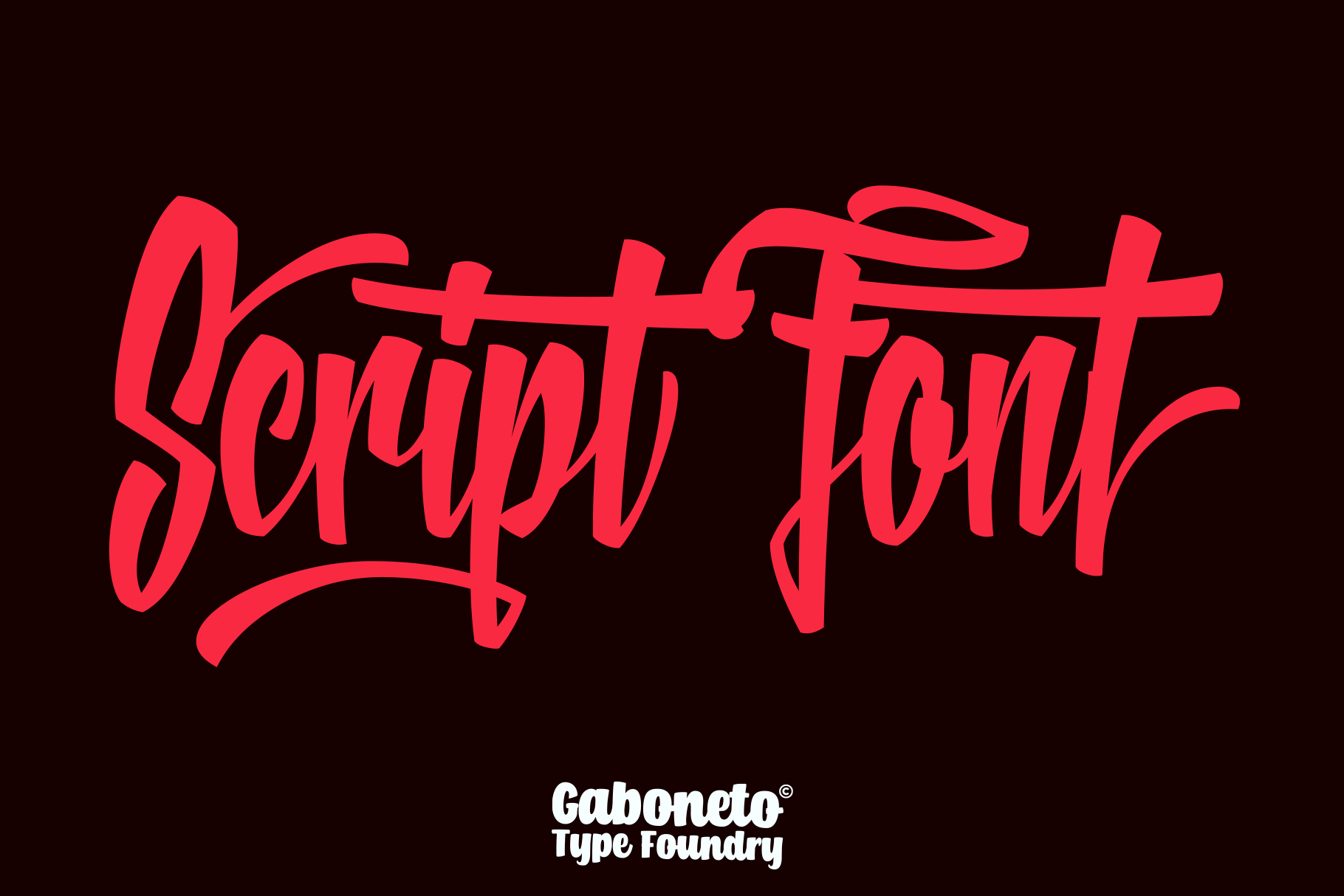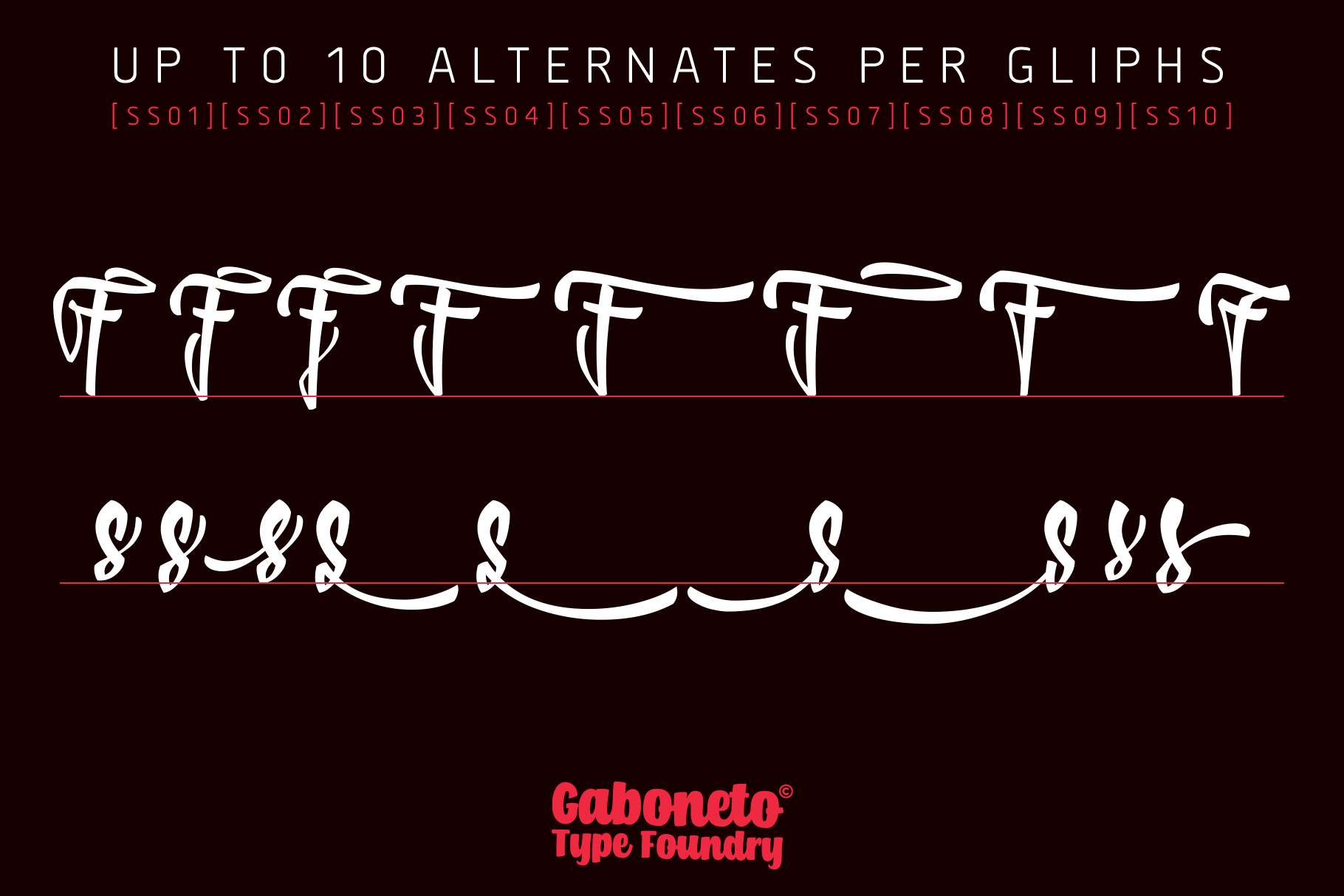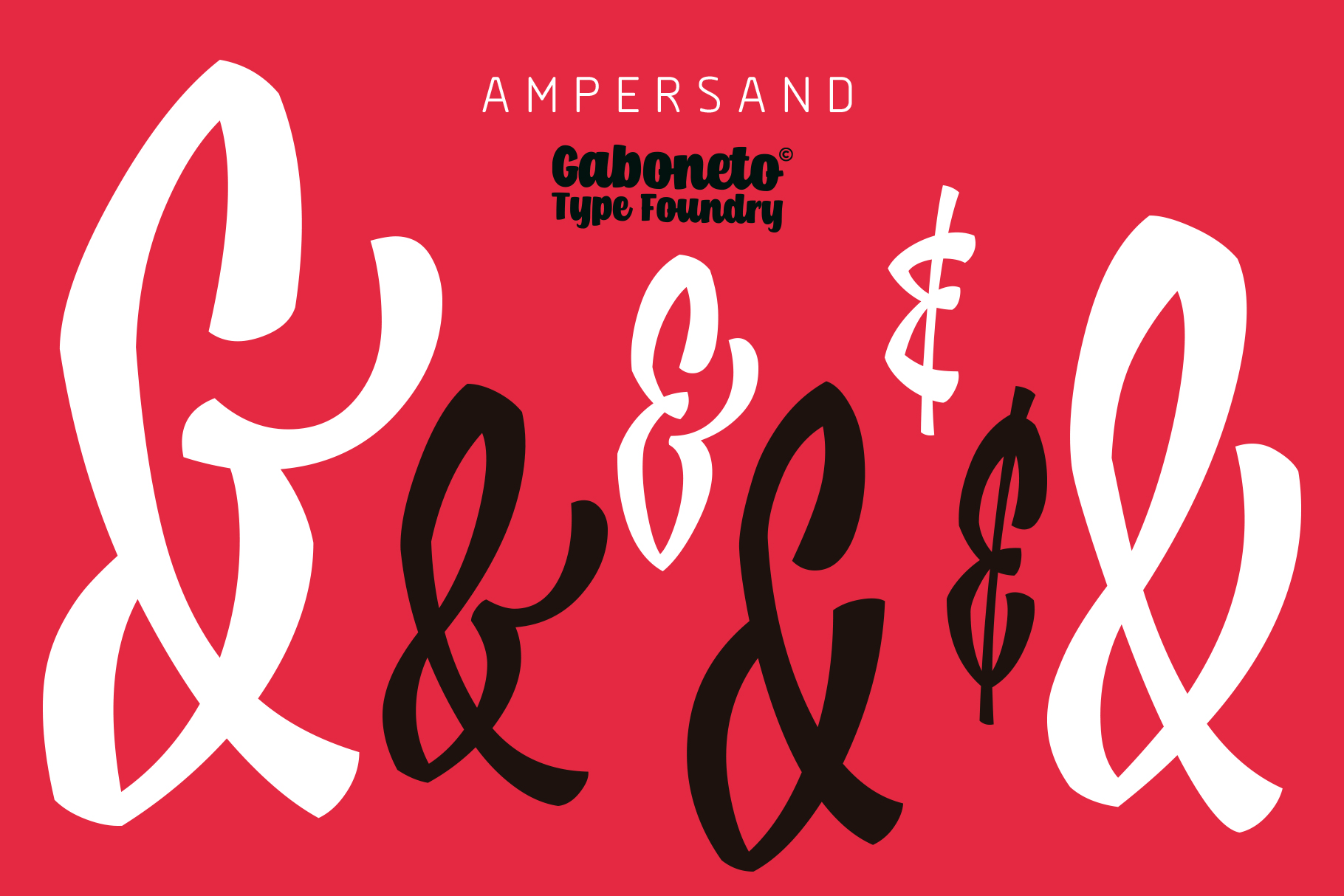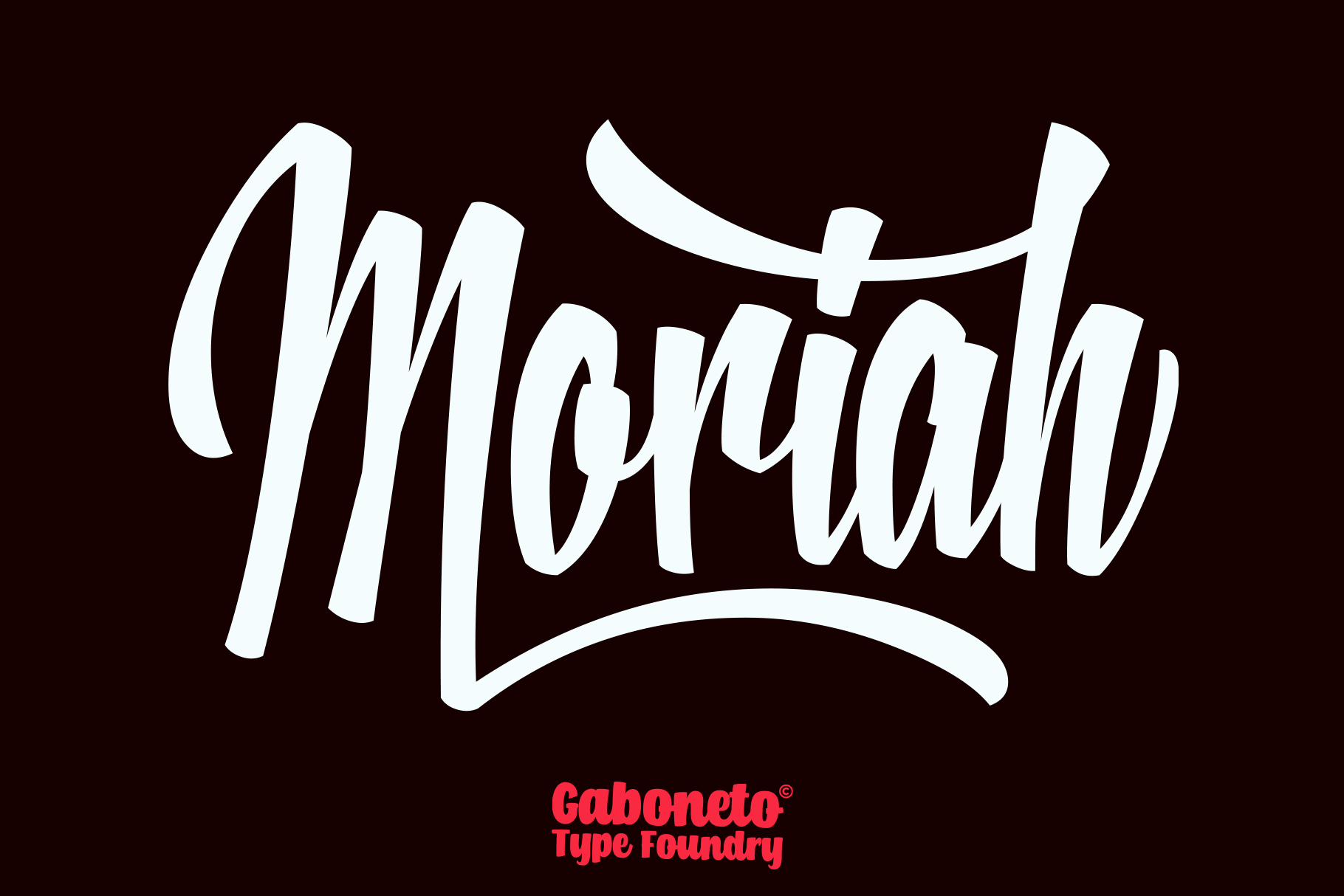
Moriah
Moriah Script Font
Moriah is another lovely modern calligraphy typefaces, which is combining the style of classic calligraphy with an modern style. combines from copperplate to contemporary typeface with a dancing baseline, modern and elegant touch. Perfect for personal and commercial use your company logo, branding, poster, flyers, greetings, invitation, book cover, quotes, and many more.